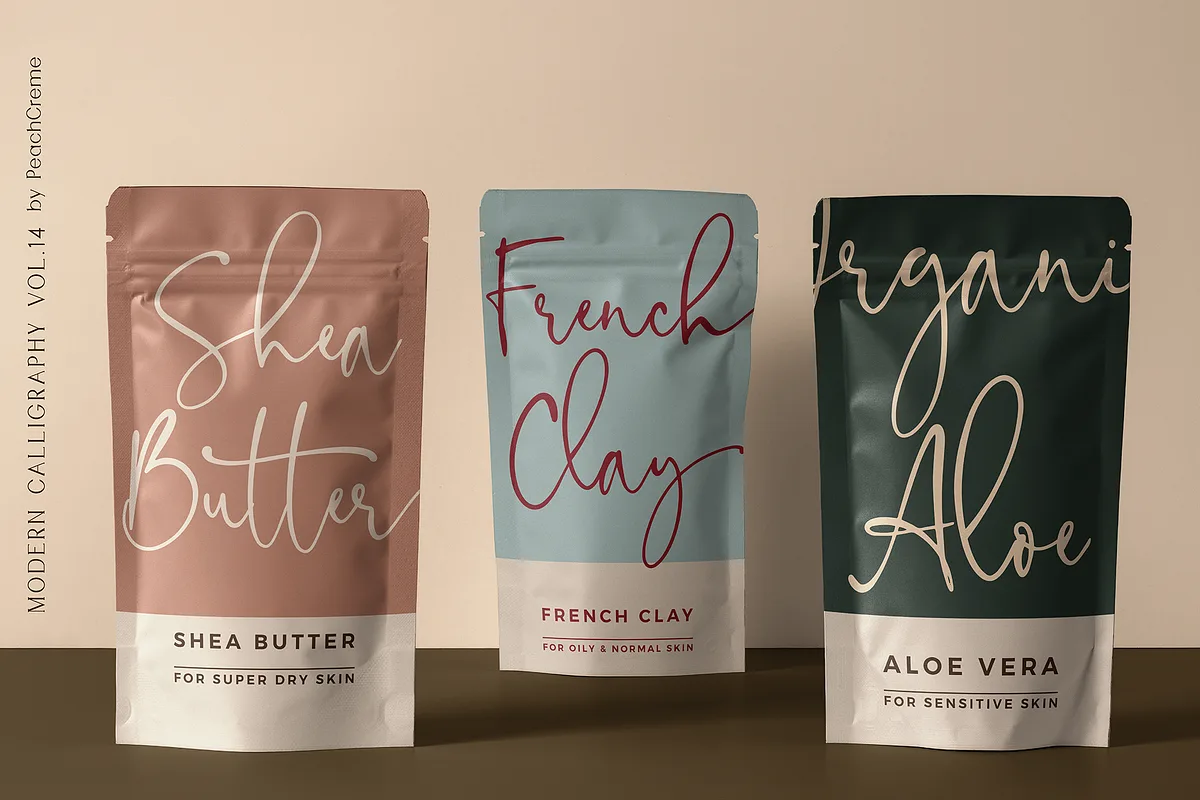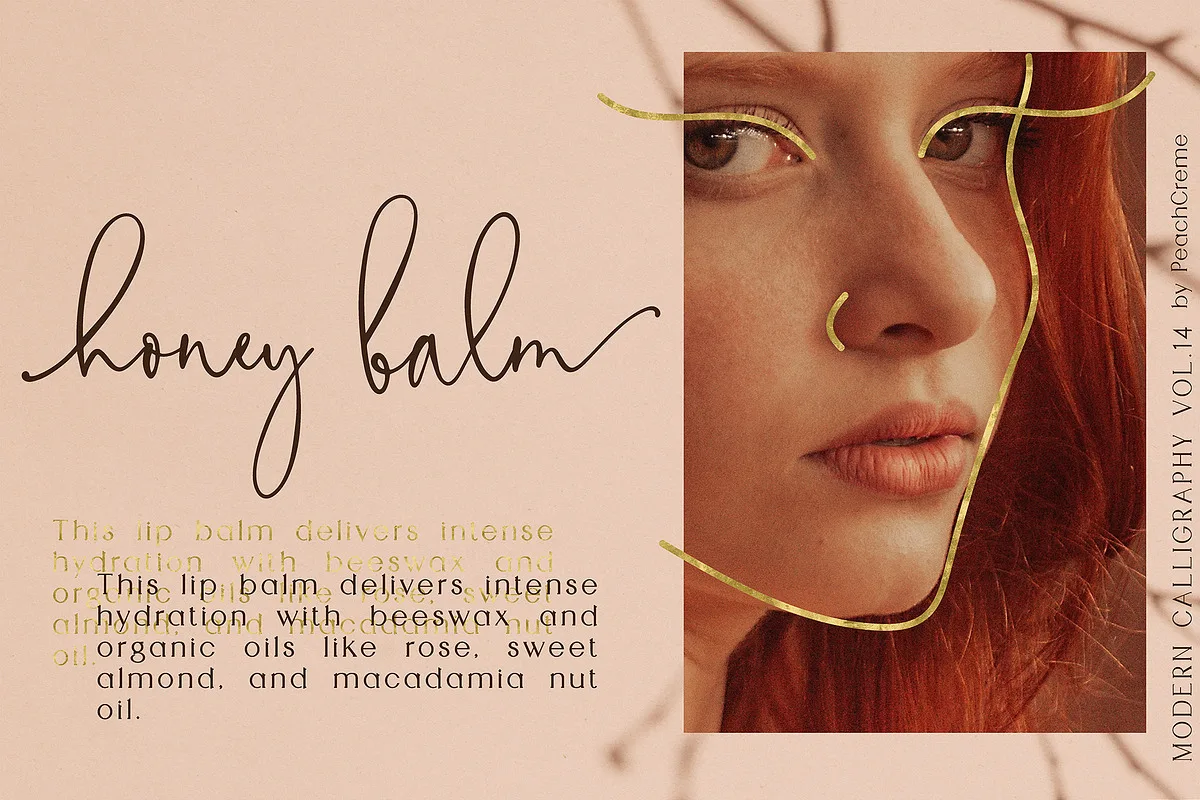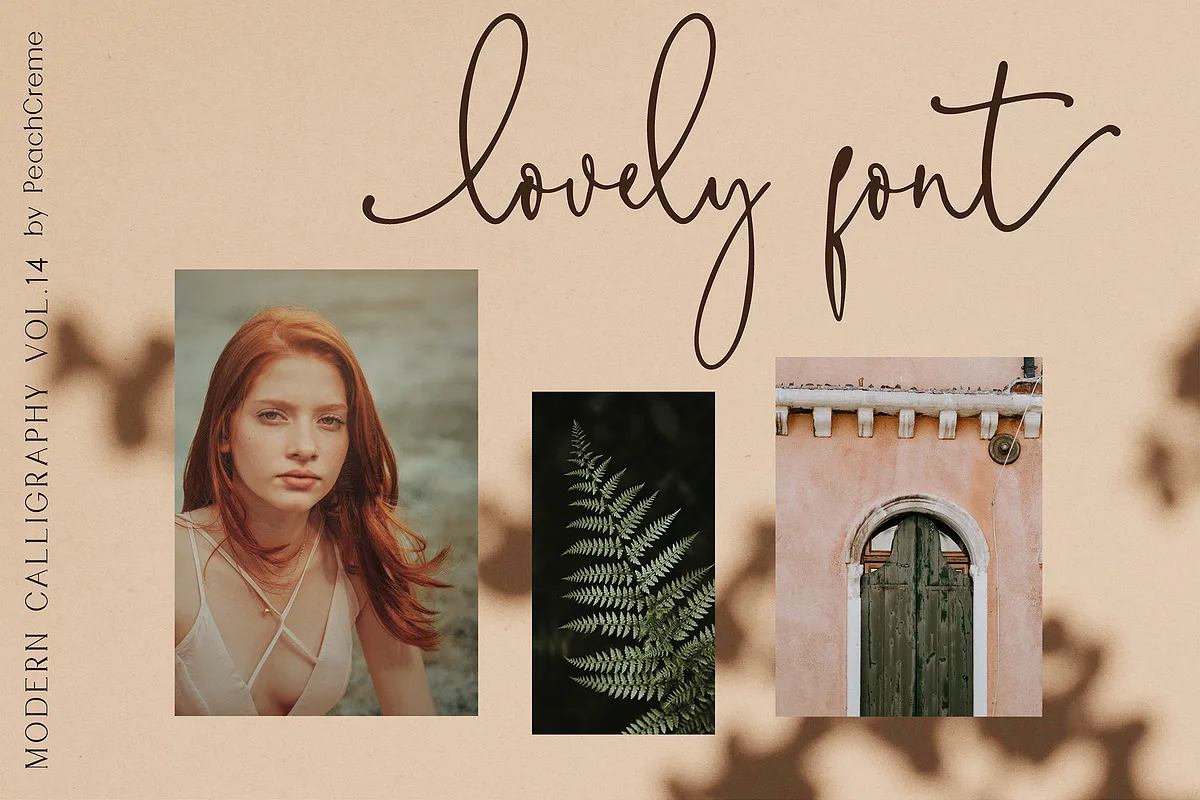
Floral Theory is a modern calligraphy font with sophisticated messy ink accents. It is perfect for branding, wedding invites, magazines, mugs, business cards, quotes, posters, and more.
The font includes a full set of lovely uppercase and lowercase letters, multilingual symbols, numerals, punctuation and ligatures.
All lowercase letters include beautiful and unique (each letter has its own “unpatterned” ending) beginning and ending swashes. It also, includes the following multilingual symbols.